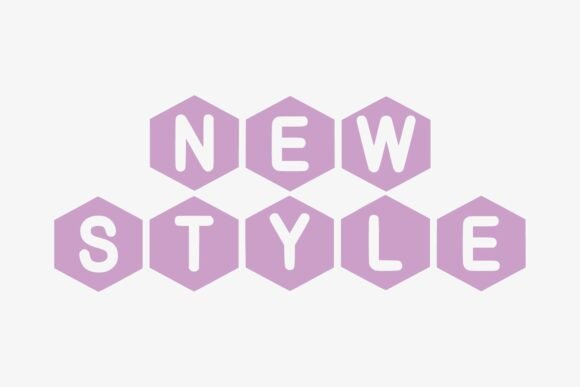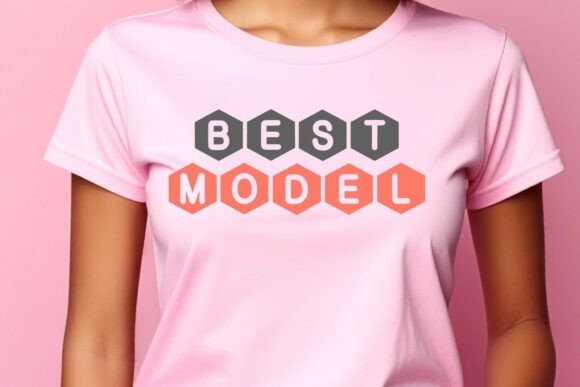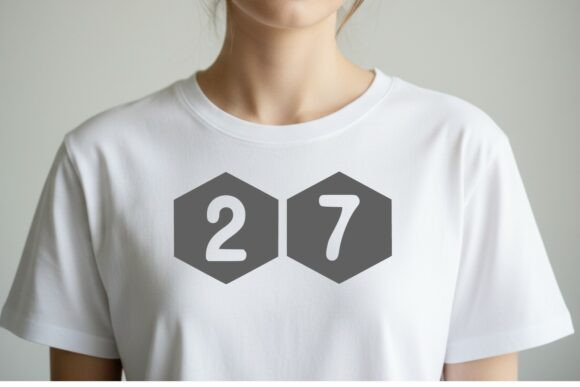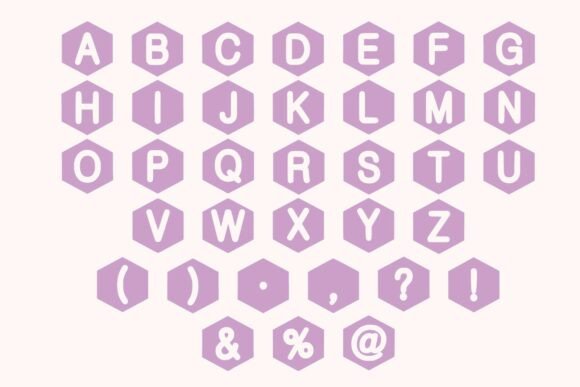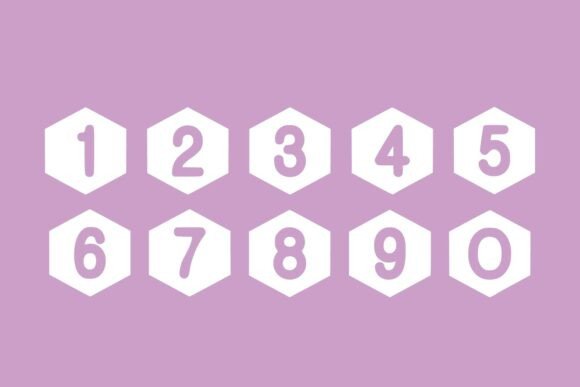
Adding a Pop of Personality to Your Designs
Have you ever been browsing through a craft store, surrounded by vibrant colors and playful designs, and felt the urge to create something truly unique and eye-catching? That’s exactly the kind of inspiration that sparked the creation of the Banner Color Font, a fun and playful decorative display font that’s perfect for bringing a smile to your audience’s faces.
Banner Color Font is a charming addition to any design, inspired by colorful banner and badge styles. Its friendly rounded letterforms make it a perfect fit for children’s designs, educational materials, posters, stickers, branding, and creative craft projects. With its cheerful and vibrant personality, Banner Color Font adds a lively and eye-catching touch to any design, making it a valuable asset for designers looking to add a little extra flair to their work.
Banner Color Font Key Features
- Unique characteristics include customizable color schemes and font styles
- Designed to be highly legible and visually appealing
Banner Color Font Review
I recently had the chance to try out the Banner Color Font, and I’m excited to share my thoughts on it. ✨ One thing that works really well is its versatility – it’s suitable for a wide range of applications, from digital marketing to web design. The font’s modern and sleek design makes it perfect for grabbing users’ attention.
- Customizable color options allow you to match the font to your brand’s identity
- Available in multiple font styles, from bold to light
However, there are some limitations ⚠️ that I want to point out:
- The font may not be suitable for print materials due to its digital origins
- Customization options can be overwhelming for beginners
- Limited support for certain languages or character sets
Overall, the Banner Color Font is a great addition to any designer’s toolkit. While it may have some limitations, its flexibility and modern design make it a valuable asset for creating eye-catching banners and graphics. With a bit of practice, I’m sure you’ll be able to unlock its full potential and take your designs to the next level.
The Banner Color Font is ideal for:
- Creating eye-catching headings and titles.
- Designing promotional banners and advertisements.
- Adding a professional touch to presentations and documents.